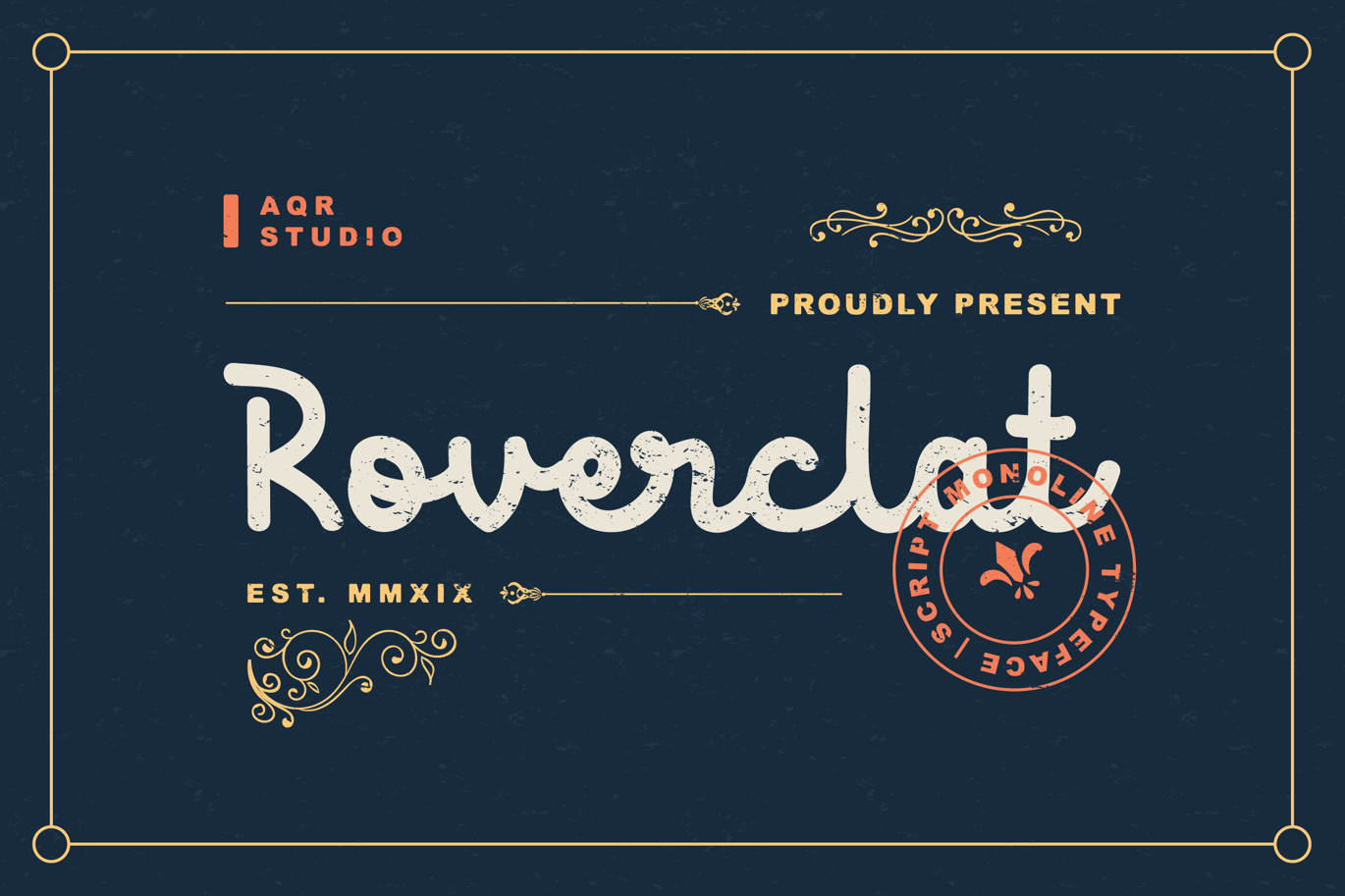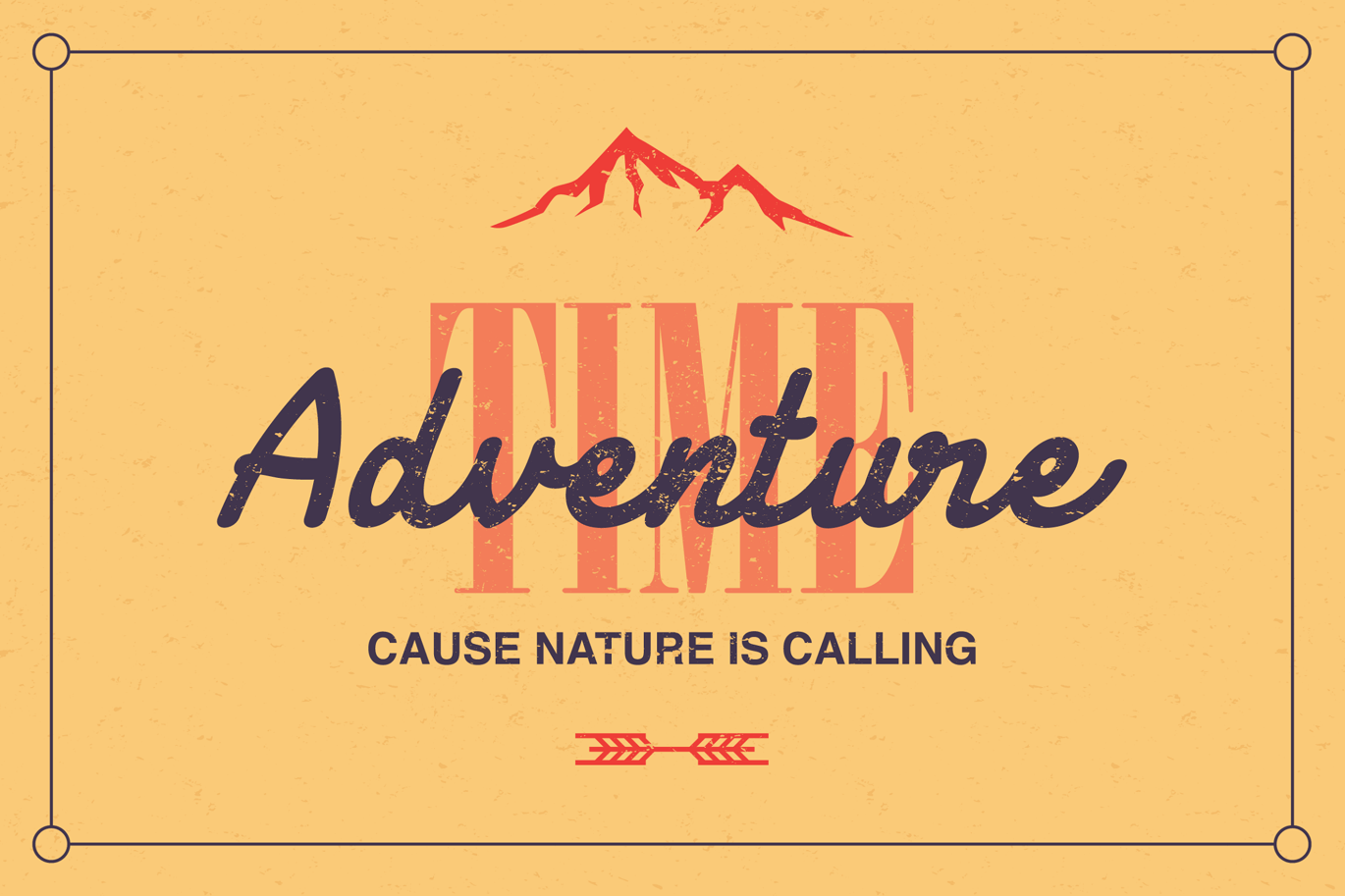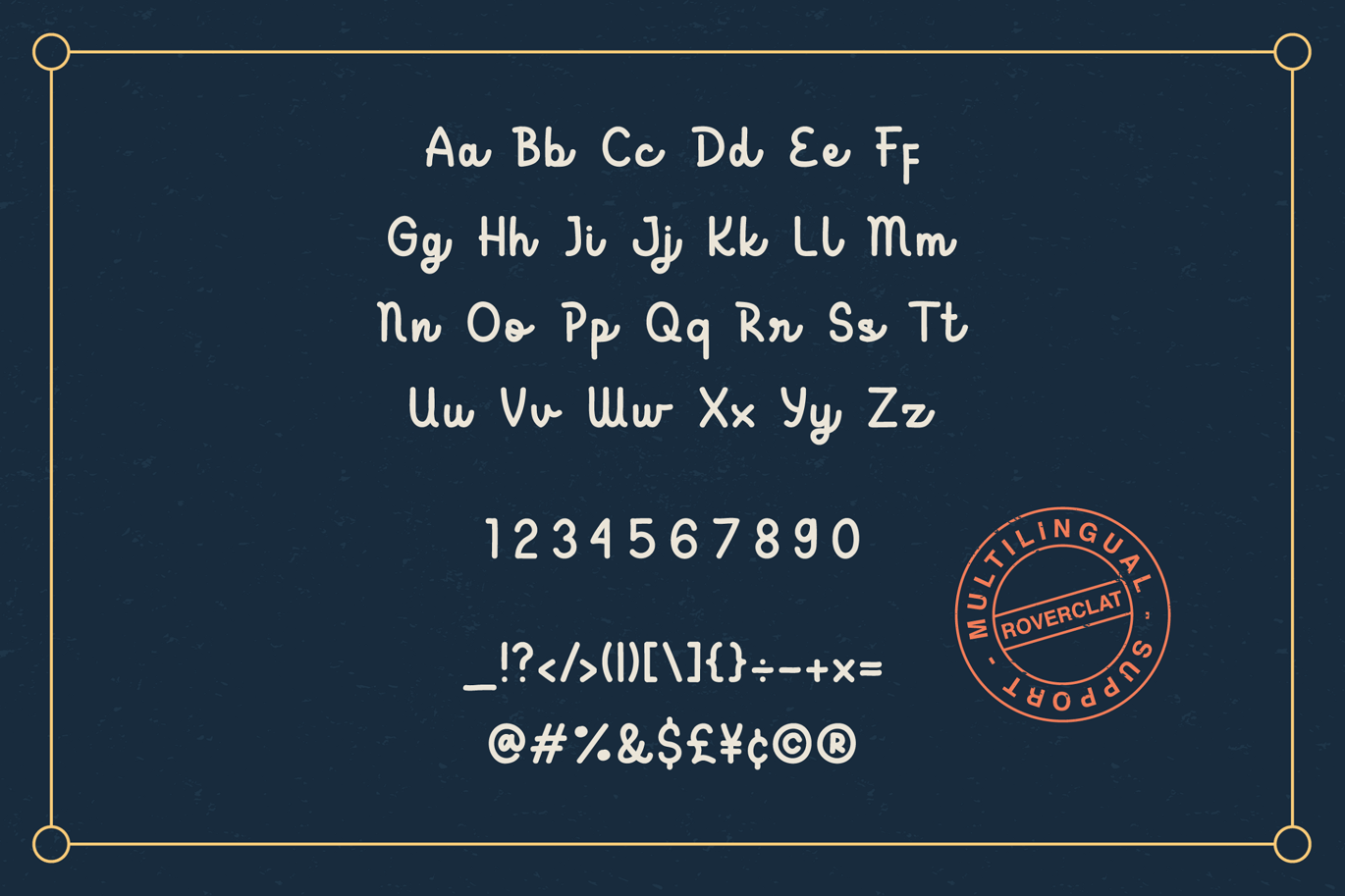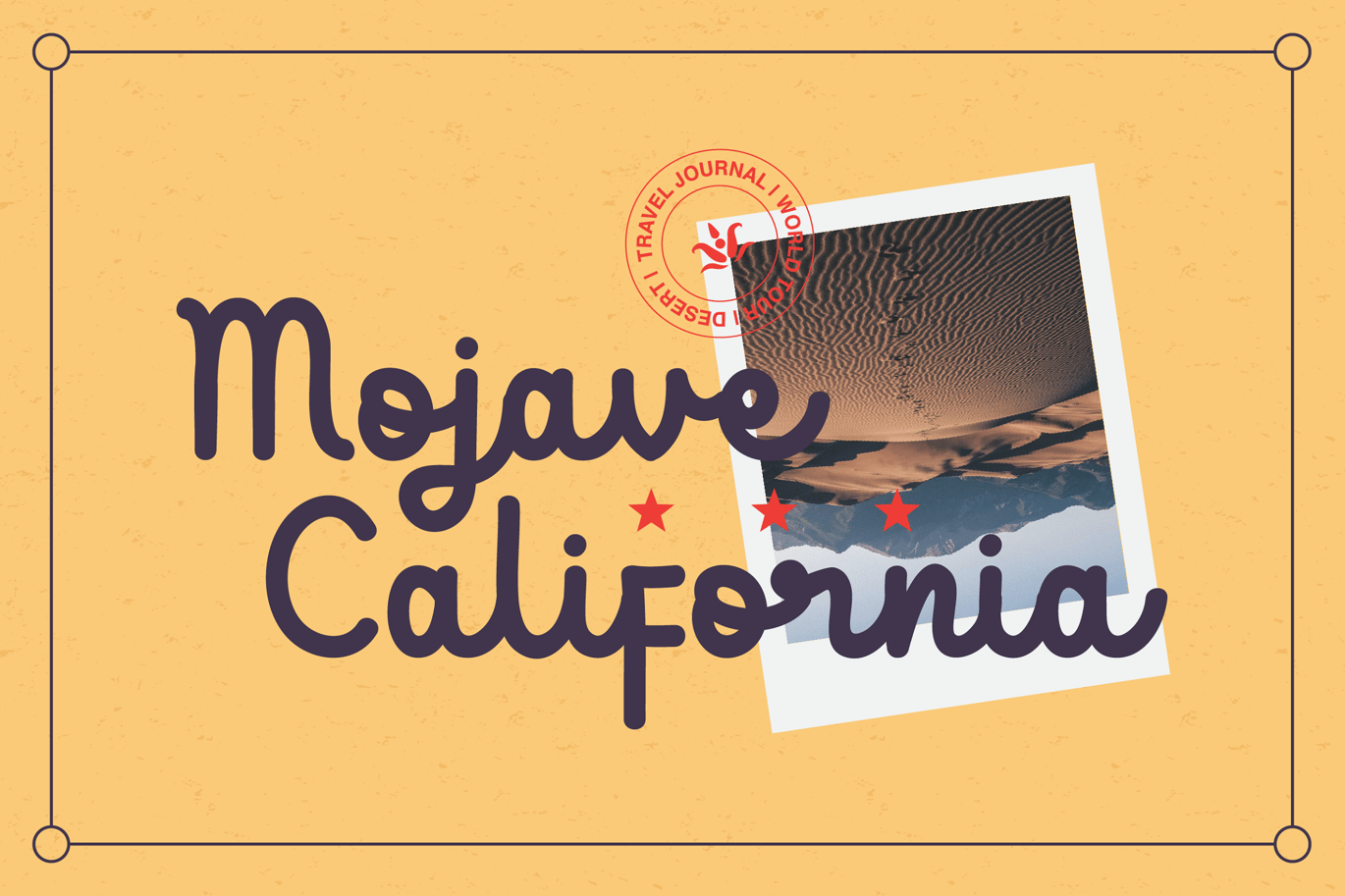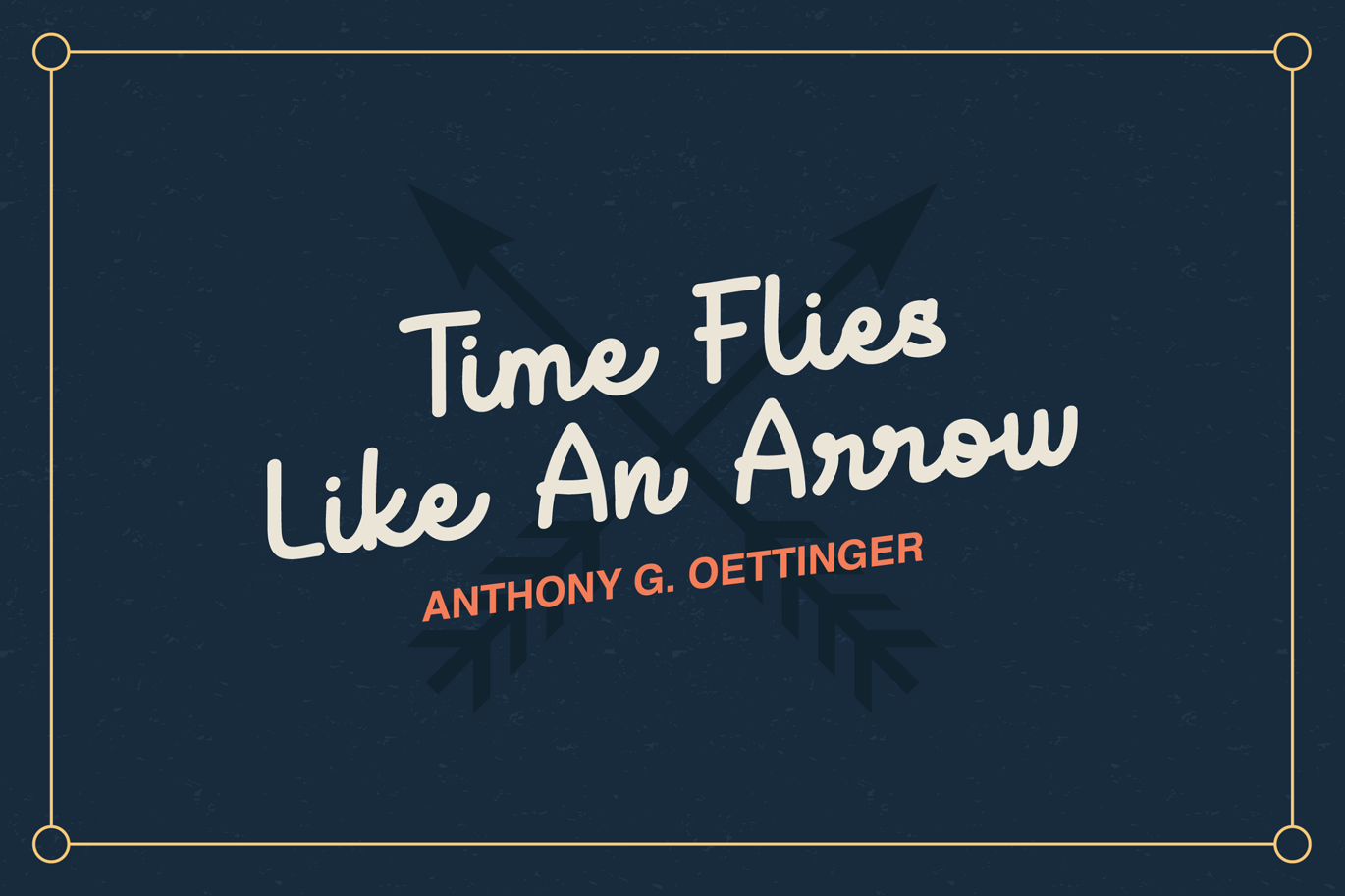
Roverclat Vintage Font
Roverclat is manual lettering with pencil, This font is a great combination for any product and business. Roverclat comfortable for vintage design, classic design, photography, branding design, T-Shirt and many more.
Roverclat Script Featured With :
- Basic Character and Multilingual Character
- Stylistic Alternates
- Swash Alternates
- Standard Ligatures